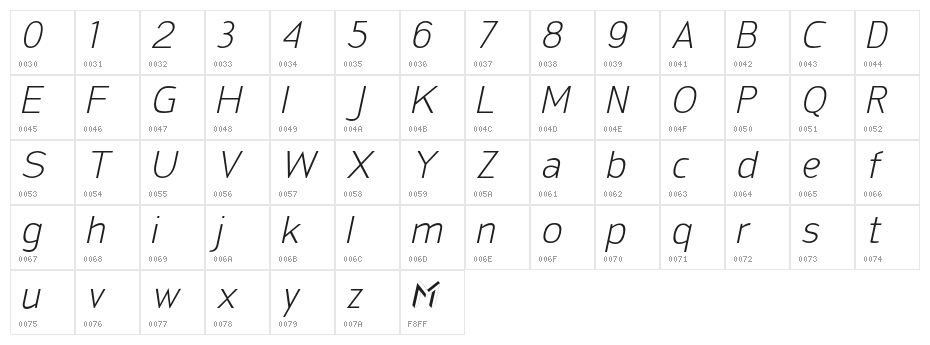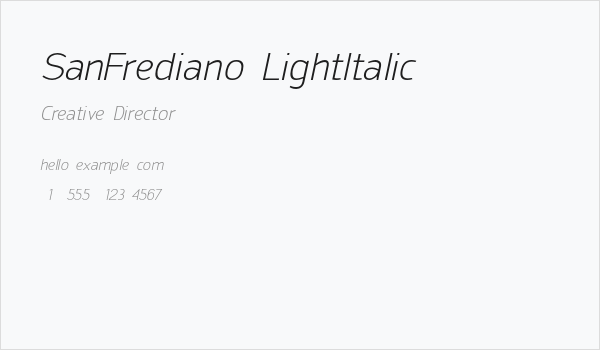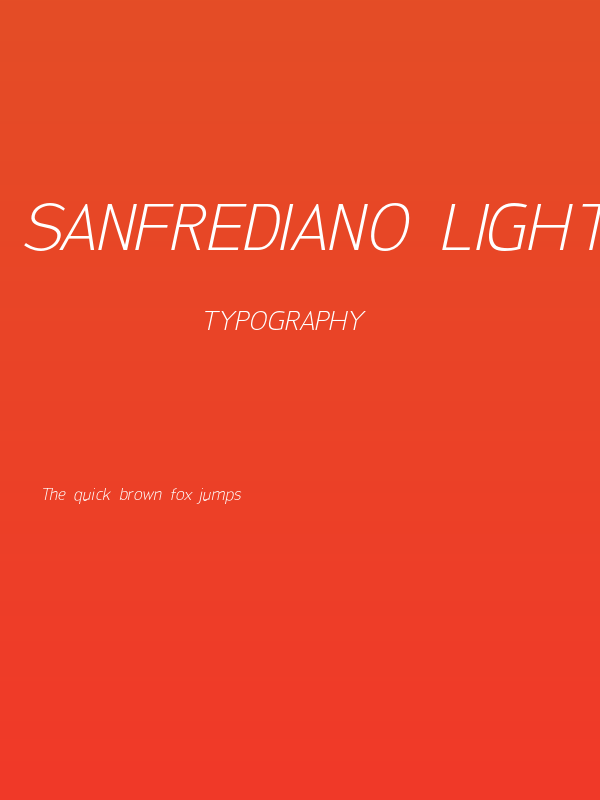
SanFrediano-LightItalic Font
SanFrediano-LightItalic Description
This font features a sleek, modern design with a light weight and italic style. The characters are elegantly slanted, giving a sense of motion and fluidity. The strokes are consistent and smooth, with a uniform thickness that contributes to its clean appearance. The uppercase and lowercase letters are well-proportioned, maintaining readability while adding a touch of sophistication. The numerals are clear and distinct, matching the overall aesthetic of the font. The spacing between characters is balanced, ensuring legibility across various applications.
Proposed ProjectsIdeal for modern branding, editorial design, and digital interfaces where a contemporary and elegant look is desired.